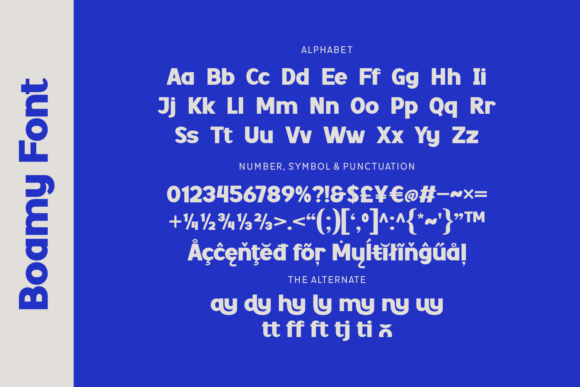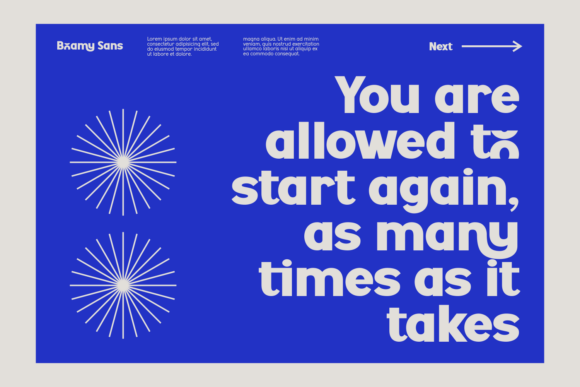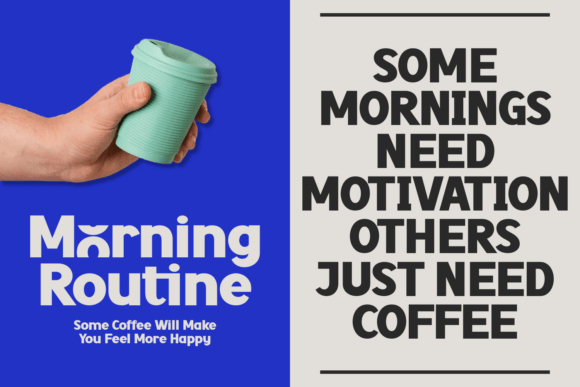
Introduction to Boamy Font
Boamy is a bold and playful sans serif font with a fresh geometric aesthetic.
Its smooth, rounded curves and rhythmic balance bring both structure and charm to your typography This modern typeface is ideal for tech branding, app interfaces, logos, and bold editorial designs.